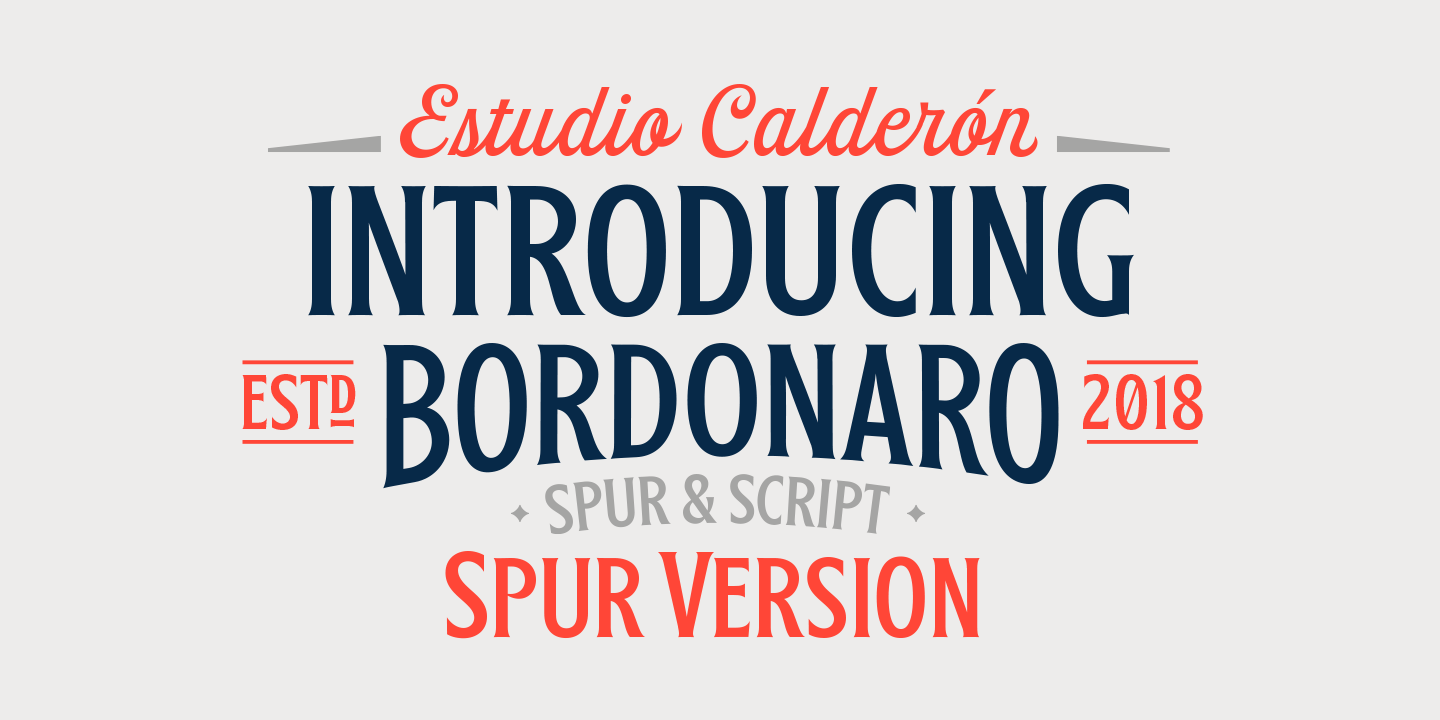
The Bordonaro Spur Font is perfect for Western-themed restaurant branding, cowboy bar signage, ranch property materials, country music venues, rodeo event promotions, American frontier designs, rustic lodge identities, and authentic Western lifestyle campaigns. This rugged typeface excels in projects for Western establishments, country music businesses, outdoor recreation companies, ranch resorts, and brands seeking to capture the bold spirit and authentic charm of American Wild West heritage.
What makes the Bordonaro Spur Font exciting is its authentic embodiment of Wild West character with rugged frontier spirit and cowboy authenticity. The font features distinctive letterforms with spur-inspired details and weathered characteristics that immediately evoke the adventurous spirit of the American frontier and cowboy culture. Its Western character and frontier heritage make it perfect for brands seeking to convey independence, authenticity, and the timeless appeal of American Western traditions. The font's rugged charm and cowboy spirit create immediate connections with audiences who appreciate frontier adventure and Western lifestyle.
The Bordonaro Spur Font family includes Western-inspired variations: Light Trail, Regular Ranch, Bold Frontier, Heavy Cowboy, Weathered, and Vintage versions. Each style maintains the font's Western character while offering different levels of ruggedness and frontier expression for diverse cowboy-themed applications. The family also features Western ornaments, spur symbols, ranch decorations, and frontier elements that enhance authentic Western design projects.
Whether you're developing Western brand identities, creating frontier marketing materials, or designing cowboy promotional campaigns, the Bordonaro Spur Font Free Download provides the perfect solution for projects requiring authentic Wild West typography. This exceptional typeface brings genuine frontier spirit to design work, making it an essential resource for designers celebrating Western heritage, cowboy culture, American frontier history, and the enduring appeal of rugged independence and Wild West adventure.